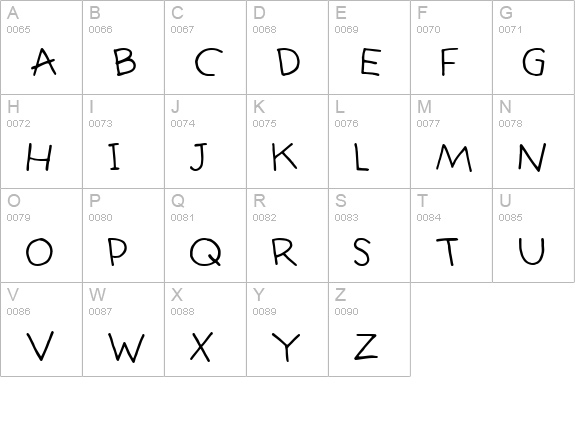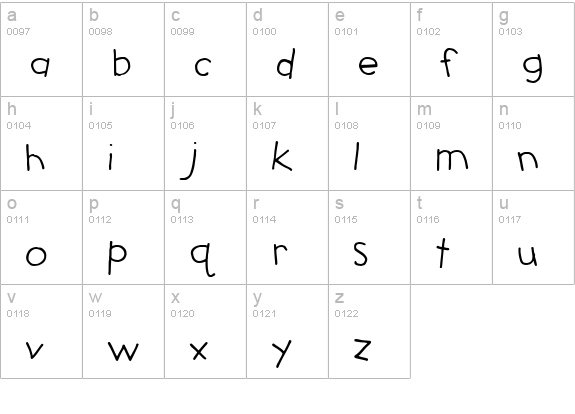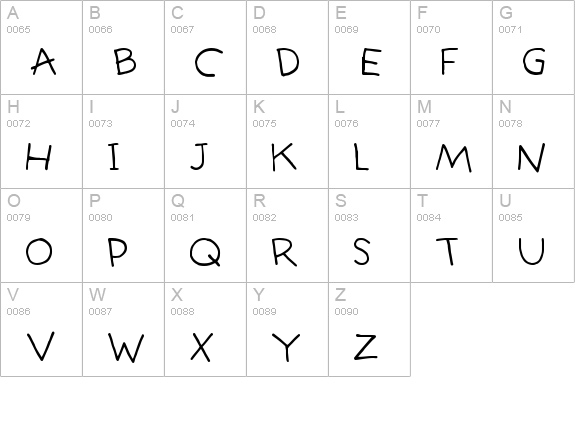
CK Teacher's Pet Font Details
CK Teacher's Pet font is a charming and whimsical typeface that exudes a sense of playfulness and creativity. This fun and quirky font is perfect for adding a touch of personality to your designs, whether you're working on invitations, posters, or branding projects. With its hand-drawn look and unique letterforms, CK Teacher's Pet is sure to make your text stand out and capture attention. And the best part? CK Teacher's Pet font is freely available to download at FontsMarket.com, making it accessible to anyone looking to add a fun and unique touch to their projects. So why not give this delightful font a try and see how it can elevate your designs to the next level?